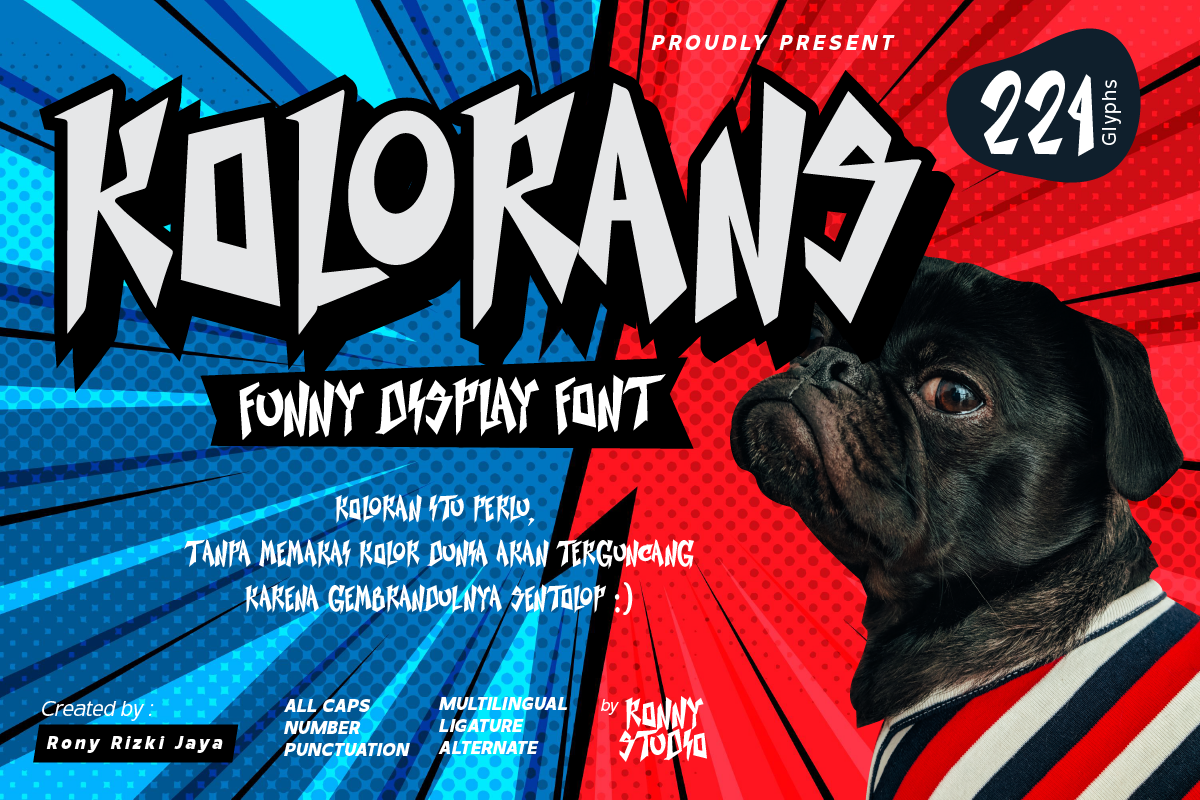
On the hunt for the best manga fonts to elevate your next project? Manga, the beloved Japanese comic art form, has captivated audiences worldwide with its unique blend of captivating storylines and visually stunning graphics.
Fonts play a pivotal role in manga design, enhancing the overall visual impact of the narrative. With a plethora of options to choose from, selecting the right manga font can be a daunting task.
But fear not! In this article, we’ve curated a collection of 18 standout manga font samples to spark your creativity and inspire your future designs. Whether you’re crafting a poster, a manga comic book, or any other project, these fonts are sure to infuse your artwork with authenticity and visual allure.
Explore our handpicked selection of manga fonts and unlock a world of possibilities for your next creative endeavor. And for more font inspiration, be sure to check out our compilations of Japanese fonts and Asian fonts.
What Are the Best Manga Fonts?
Manga fonts hold a special allure for designers seeking to infuse their projects with the dynamic visual style of Japanese comics. These fonts range from sleek and modern to whimsically expressive, offering a diverse array of options to suit any manga-inspired creation. Drawing inspiration from the captivating world of manga, these fonts bring authenticity and flair to your designs.
Why Choose the Best Manga Fonts?
Selecting the best manga fonts for your project brings a multitude of benefits and opportunities for creative expression.
Firstly, manga fonts possess a unique ability to capture the essence of Japanese comic art, instantly immersing viewers in the vibrant world of manga. With their distinct character and style, these fonts add depth and authenticity to your designs, elevating them to new heights of visual impact.
Moreover, manga fonts offer unparalleled versatility, allowing you to tailor your typography to suit the tone and aesthetic of your project. Whether you’re crafting a manga comic, poster, or digital artwork, there’s a manga font that perfectly complements your creative vision.
1. Mangaka – Cartoon Kids Boom Manga Font
2. Hey Comic Manga Fonts For Kids Designs
3. Best Friends Comic Manga Font
Introducing “Wildstyle | Chicano Tattoo Style,” your ultimate choice for the number tattoo fonts.” This exceptional font encompasses both the essence of wildstyle and the Chicano tattoo style, making it the perfect addition to your creative arsenal. With a comprehensive character set, it includes uppercase and lowercase letters, numerals, an extensive selection of punctuation marks, and captivating ligatures.
4. The Last Shuriken – Japanese Style Manga Font
Embrace the essence of Japanese culture with ‘The Last Shuriken’ manga font. Bold and inspired by modern Japanese branding and anime, this all-capitals typeface boasts a striking stroke and diverse shapes. Perfect for various displays, including Japanese food, logos, posters, and apparel, it comes complete with stylistic alternates and multilingual support. Elevate your designs with this captivating font set, available in both OTF and TTF formats for seamless integration across platforms.
5. Tricky Jimmy – Comic Cartoon Manga Font
Elevate your manga designs with ‘Manga Tricky Jimmy,’ a comic cartoon manga font. Perfect for online games, posters, movie titles, and more, its simple yet playful shape exudes happiness in every word. The Tricky Jimmy family includes OTF, TTF, and WOFF formats, covering basic Latin characters, numbers, and punctuation. Compatible with various design software, this font is easily accessible for both PC and Mac users. Unleash your creativity with Manga Tricky Jimmy and spread smiles with every design!
Key features of HISTORIC include:
- Uppercase Letters
- Numerals
- Diverse Range of Punctuation Marks
9. Kolorans Funny Display Font
Kolorans Funny Display Font brings a delightful touch to your designs with its cute and whimsical style. As a comic display font, it exudes a playful charm, featuring bold and slightly exaggerated letterforms that evoke a lighthearted feel. With its cute and quirky appearance, Kolorans is ideal for comic books, titles, posters, and other projects where a friendly and approachable look is desired.